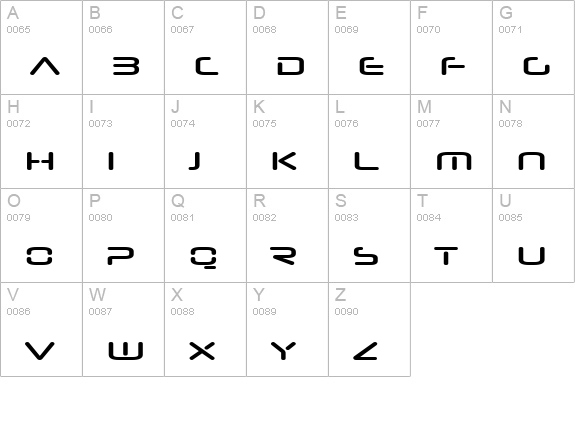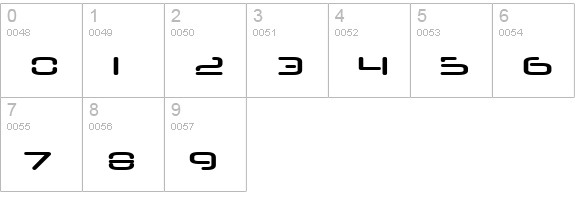
Neuropol Nova Xp Bold Font Details
Neuropol Nova Xp Bold is a strong, high-contrast variant in the Neuropol typeface family \xE2\x80\x94 well suited to headlines, attention-grabbing titles, and strong calls-to-action.
Neuropol Nova Xp Bold font is a bold and futuristic typeface that exudes a sense of modernity and innovation. Its sleek lines and sharp angles make it perfect for projects that require a strong and dynamic visual impact. The bold weight of this font commands attention and adds a touch of confidence to any design. What makes Neuropol Nova Xp Bold font even more appealing is that it is available for free download at FontsMarket.com. This means that you can easily access this cutting-edge font without any cost, making it a valuable addition to your font library. Whether you're working on a branding project, poster design, or any other creative endeavor, Neuropol Nova Xp Bold font will help you stand out with its bold and contemporary aesthetic. Download it today and elevate your designs with this striking typeface.